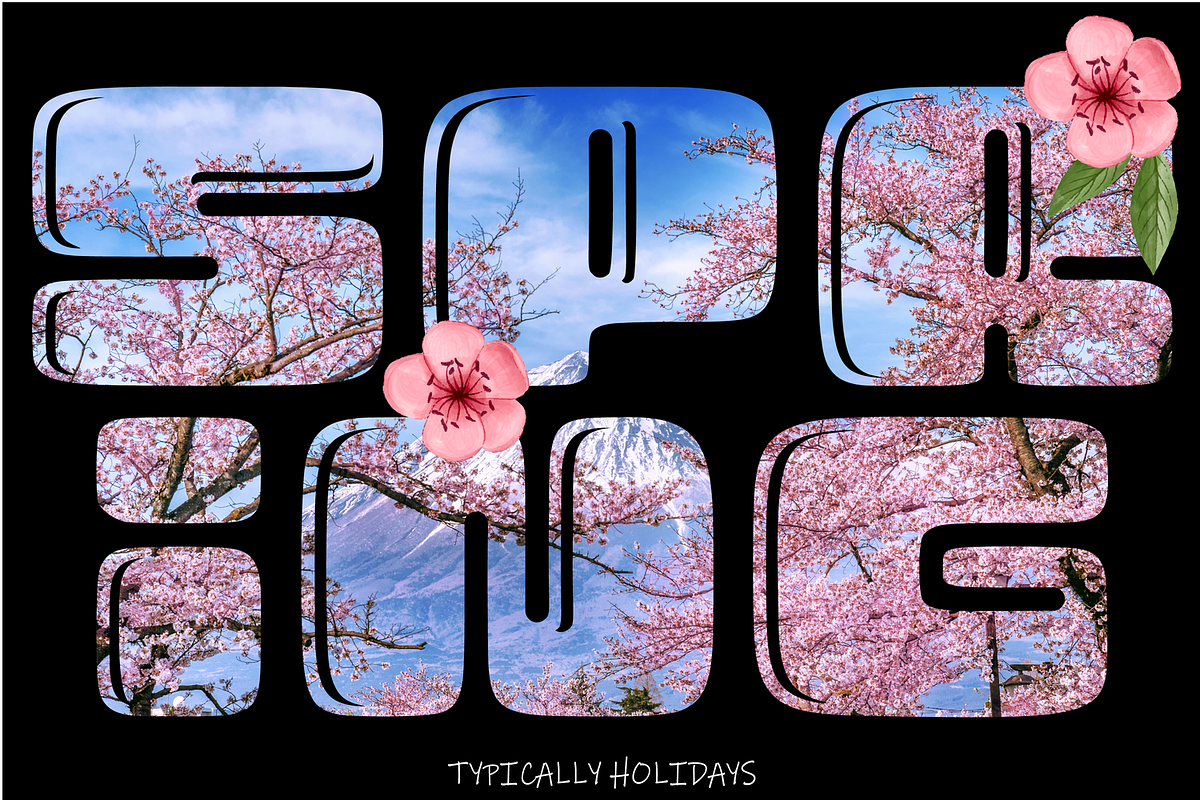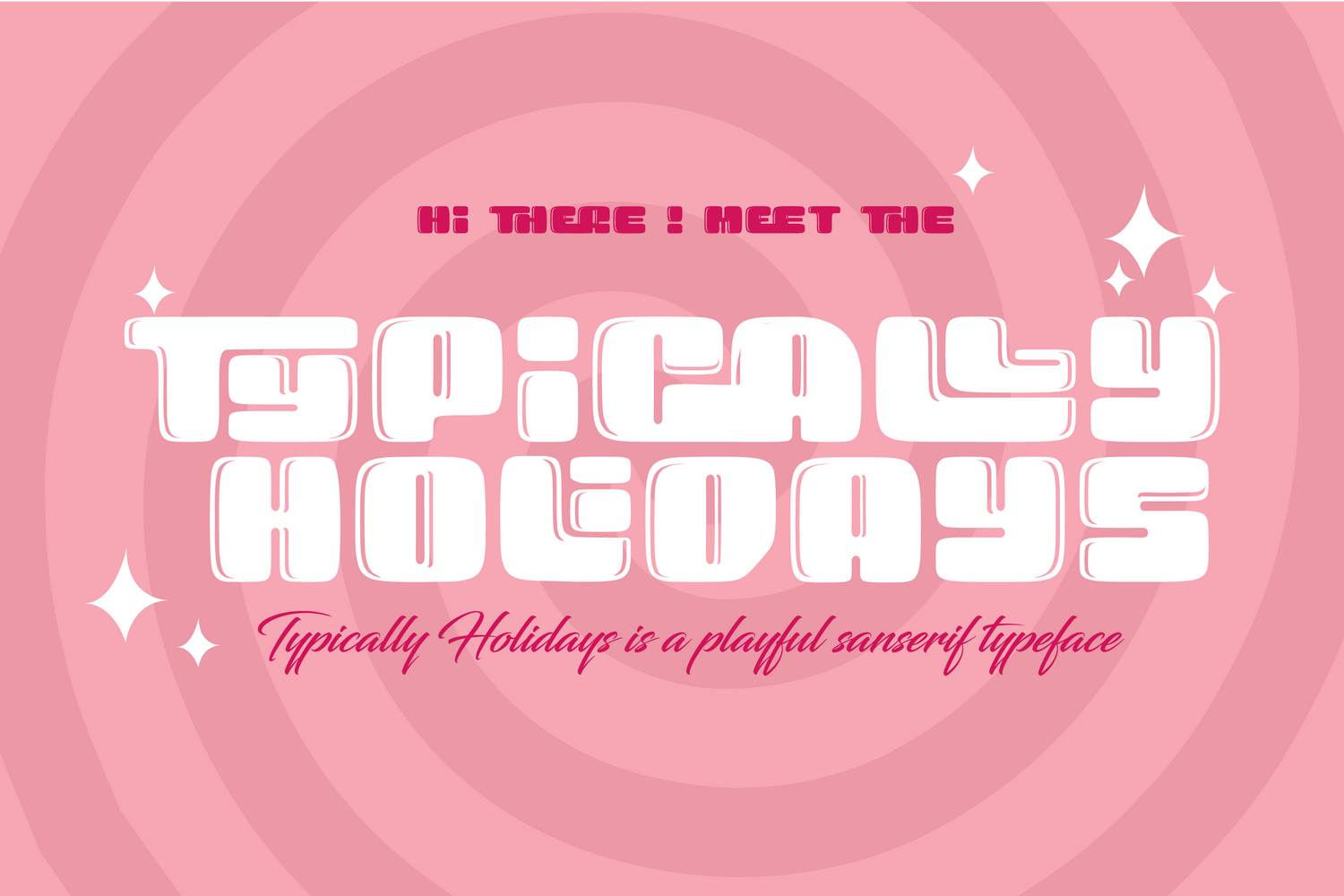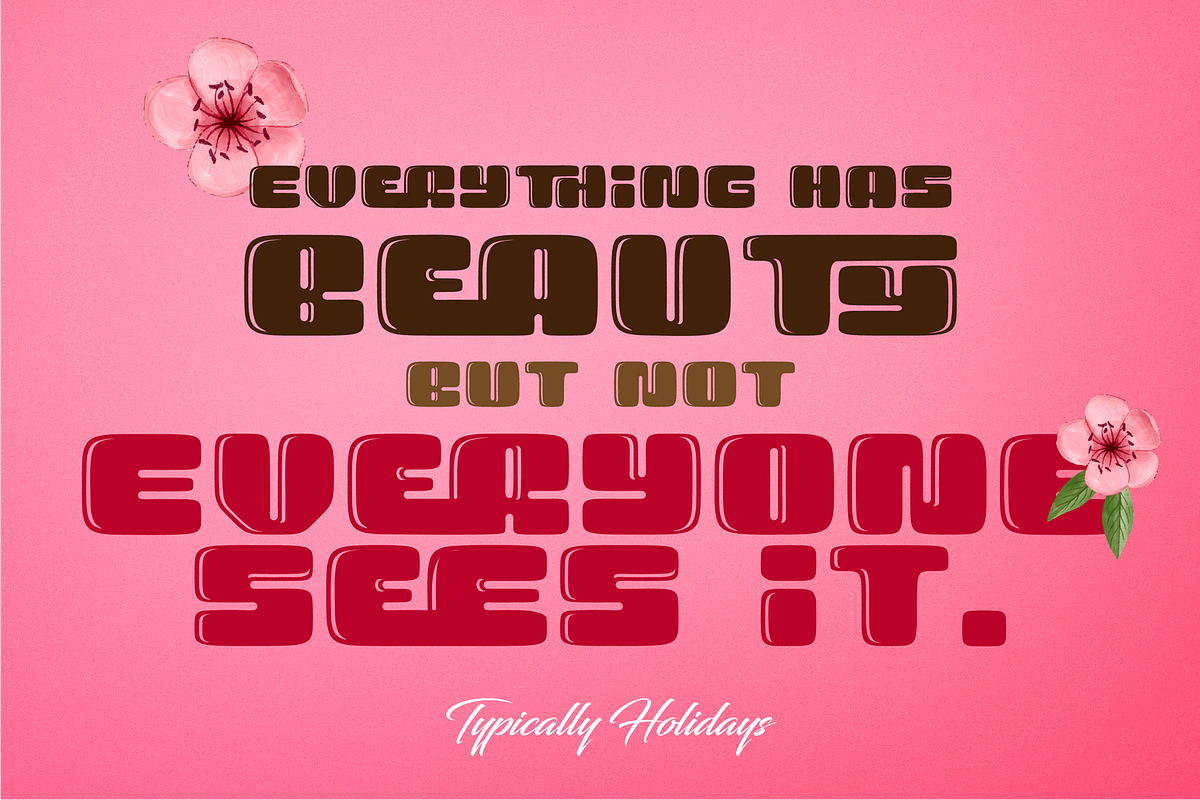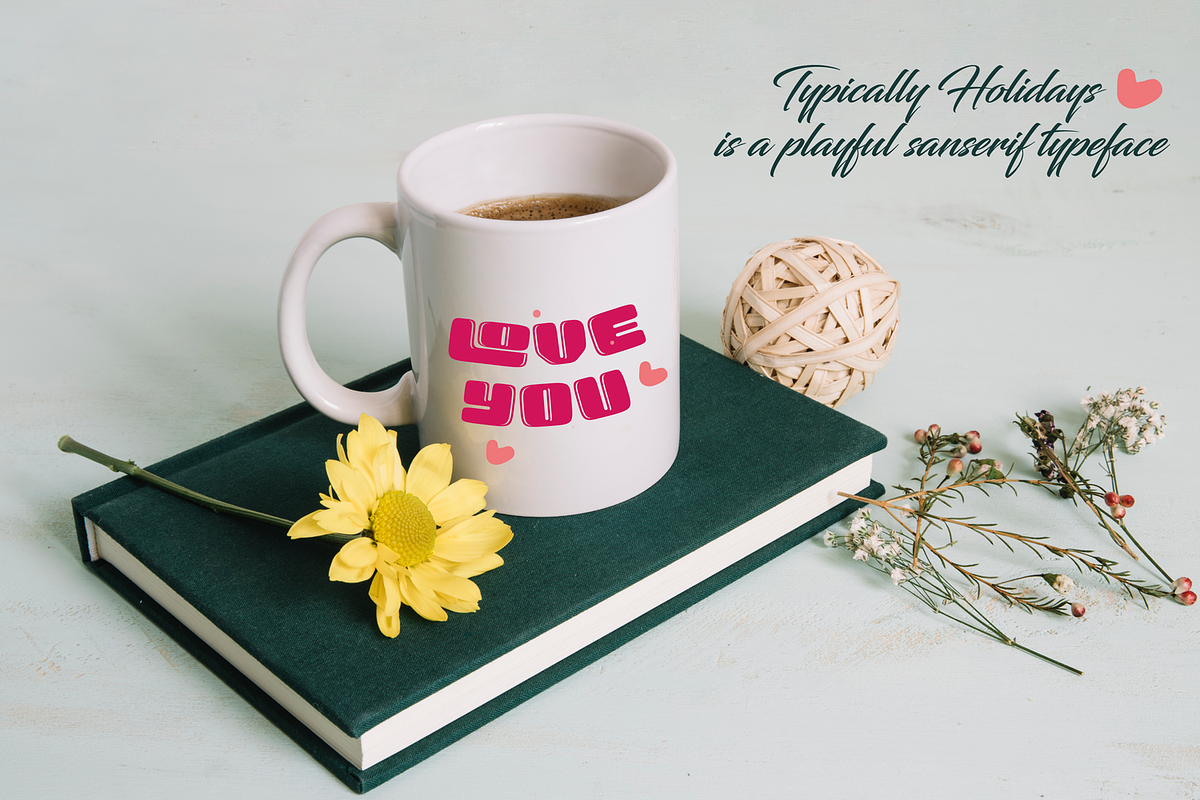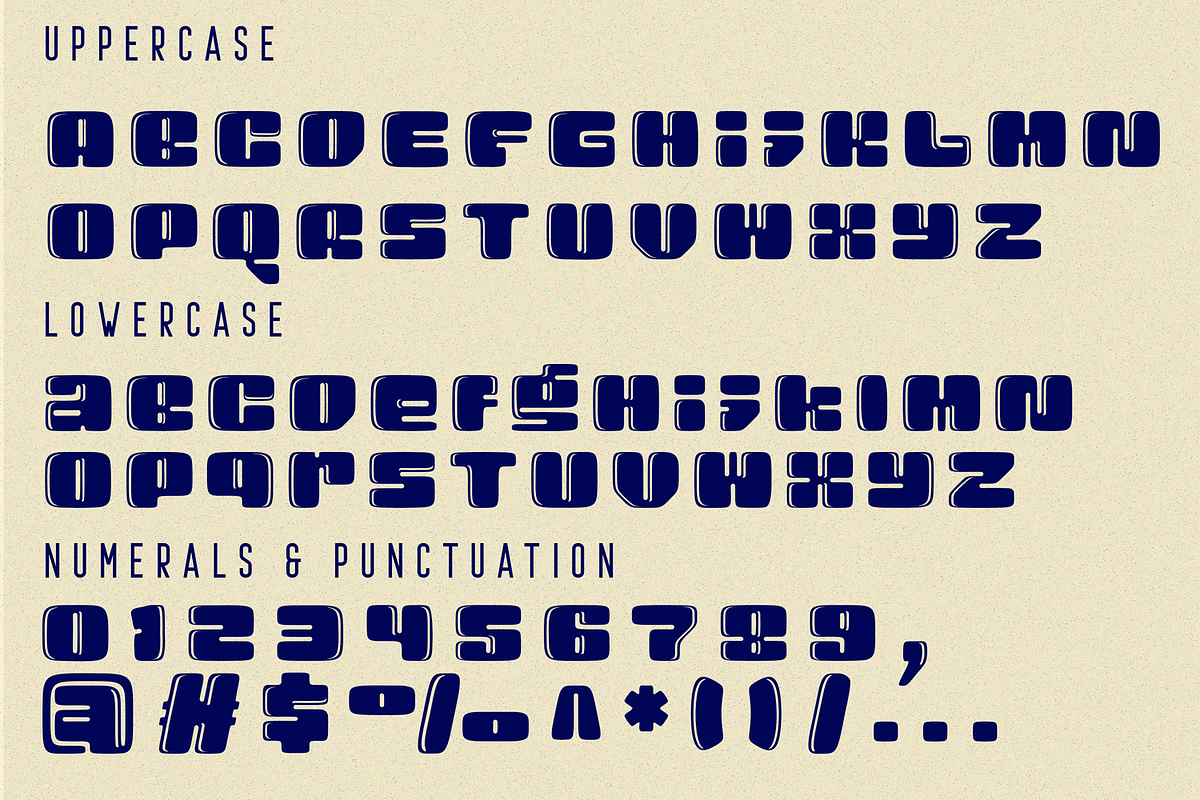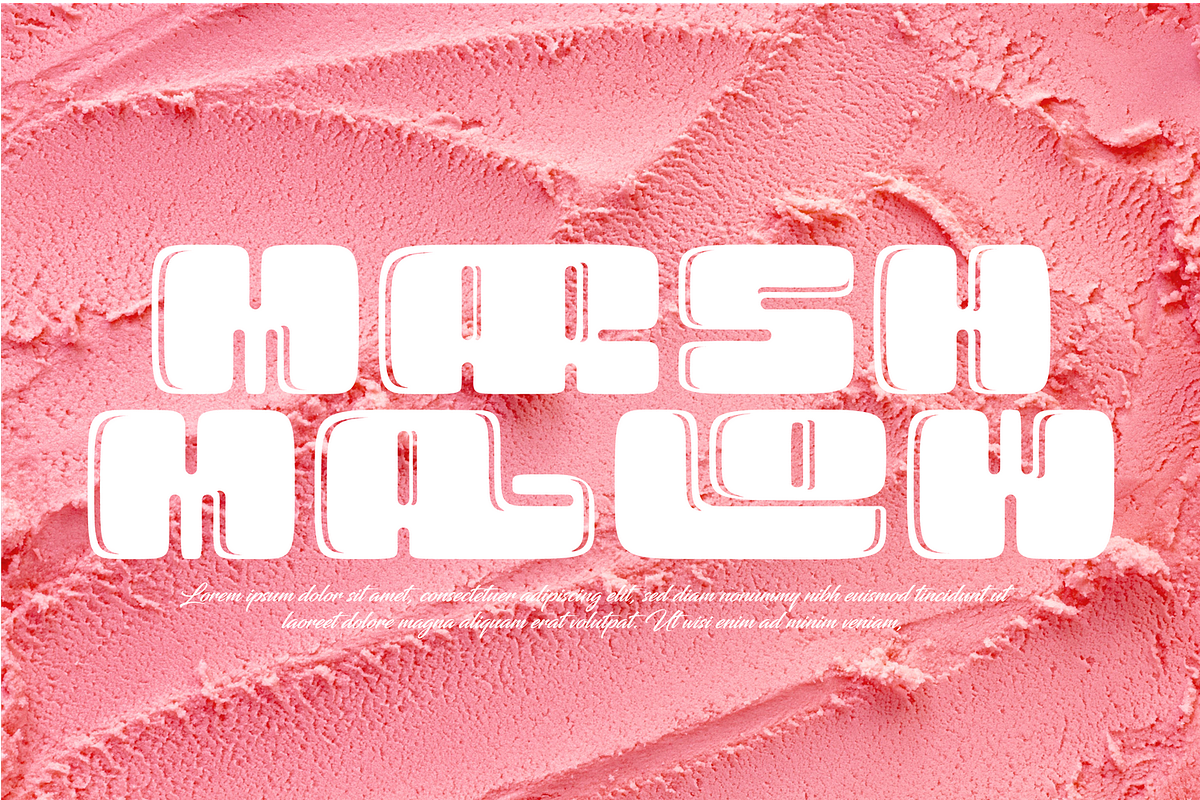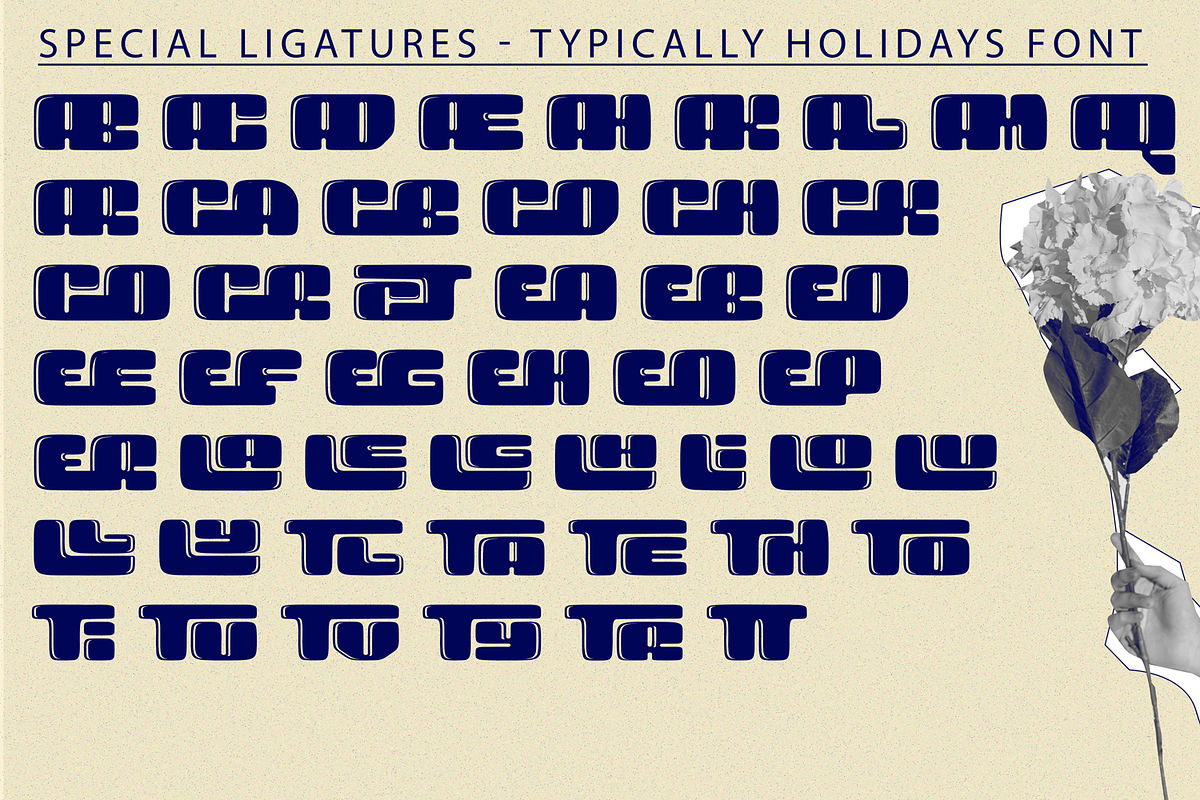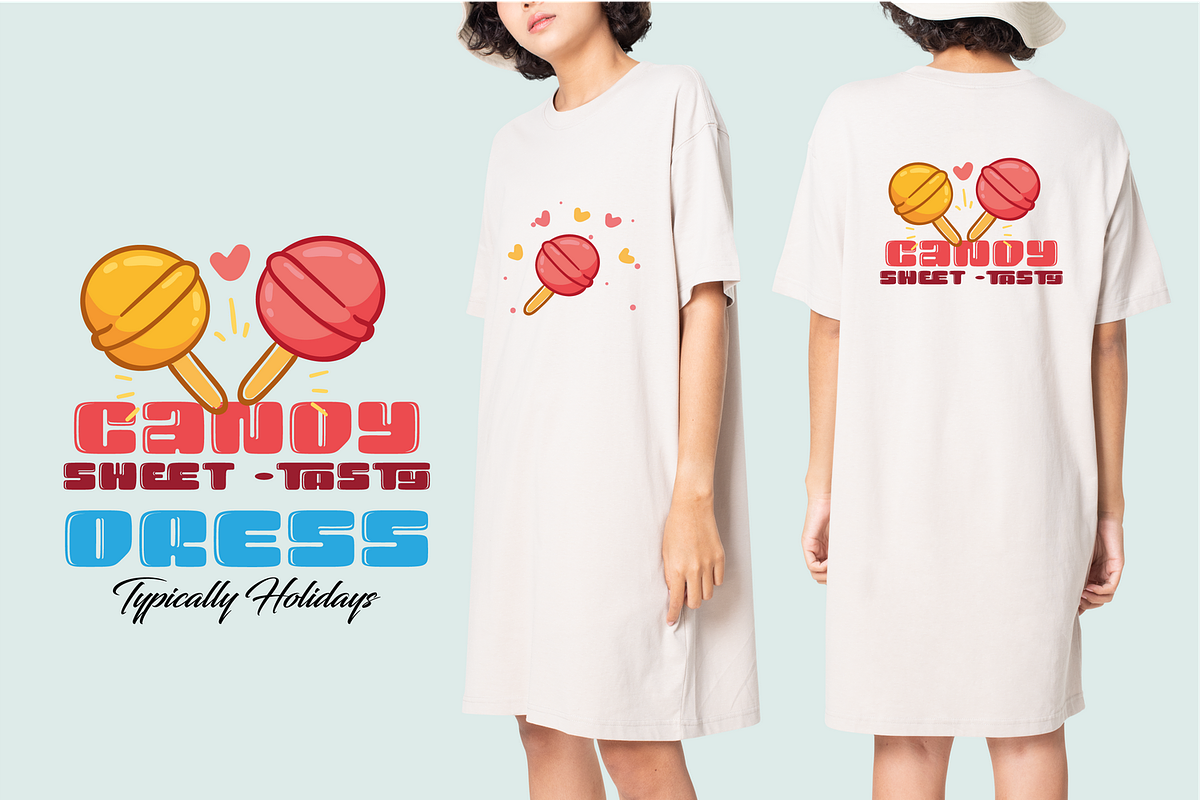
Typically Holidays - Playful Font
typically holidays font is a unique and sweet & playful font, a bold and stylish, quirky display font with a fun and trendy cute characters. It’s characters have a simplicity and charm that are perfect for big, bold headings. It's also includes a few ligatures and alternate characters to add that extra bit of personality. With a childish style, it will be very suitable for your project, which is related to children. Such as story books, illustrations, comic books, t-shirts, posters, greeting cards, logos, branding, stickers, svg, crafting.
To make it look more unique, here we prepared some ligatures:
AB AC AD AE AH AK AL AM AQ AR CA CB CD CH CK CO CR CT EA EB ED EE EF EG EH EO EP ER LA LE LG LH LI LO LU LL LY TL TA TE TH TO TI TU TV TY TR TT